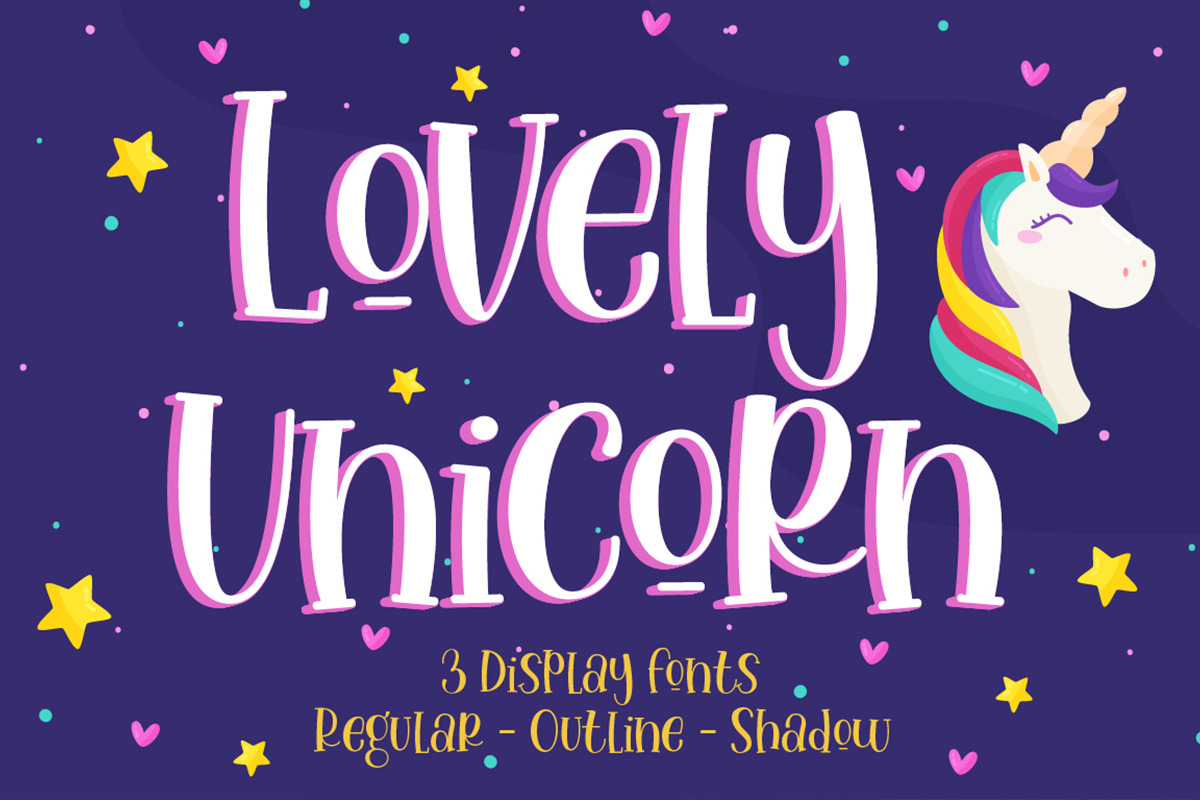
Introducing "Lovely Unicorn"
Lovely Unicorn Is a Handwritten Font With 3 Style (Regular,Outline and Shadow) You Can Mix And Match for Your Awesome Project
This fonts is ideal for crafting, branding and decorate your any project. This fonts are perfect for wedding invitation or your blog. Also with their help, you can create a logo or beautiful frame for your home. Or just use for your business, book covers, stationery, marketing, magazines and more.
- Number & Punctuation
- More than 265 of glyphs
- Multilingual Language
- 28 Ligatures